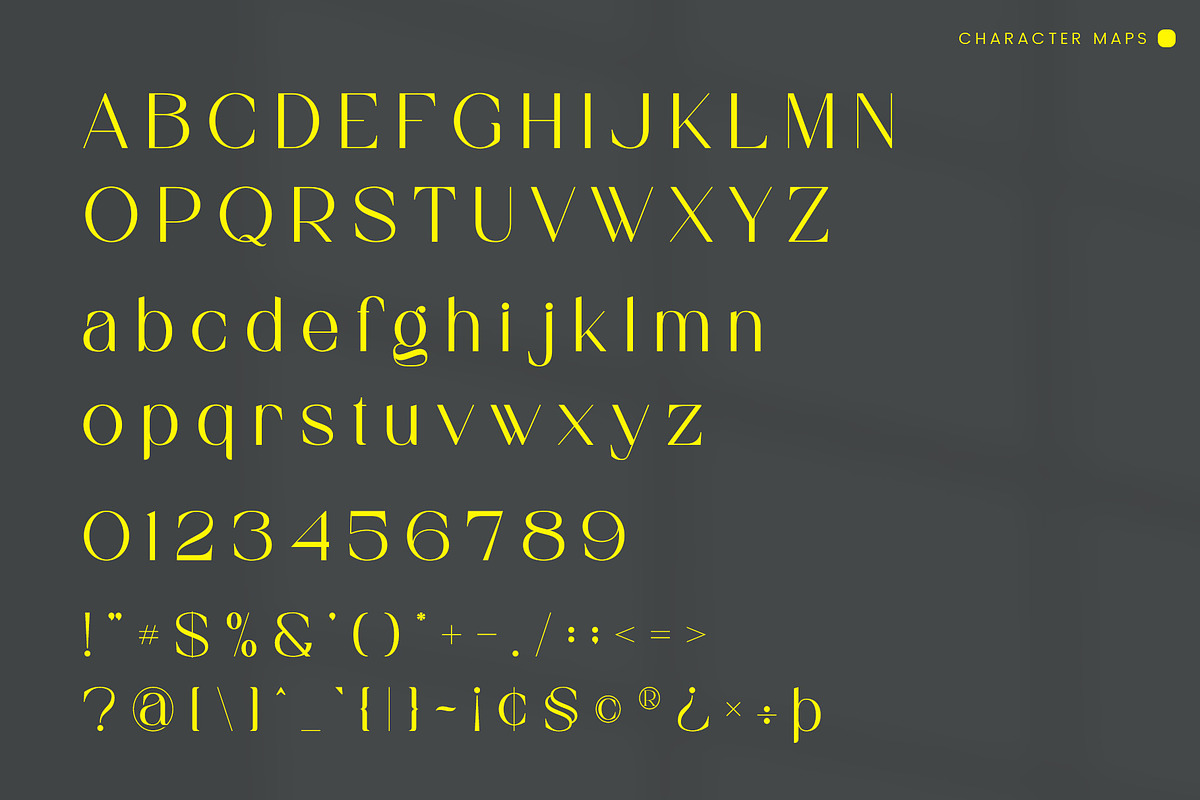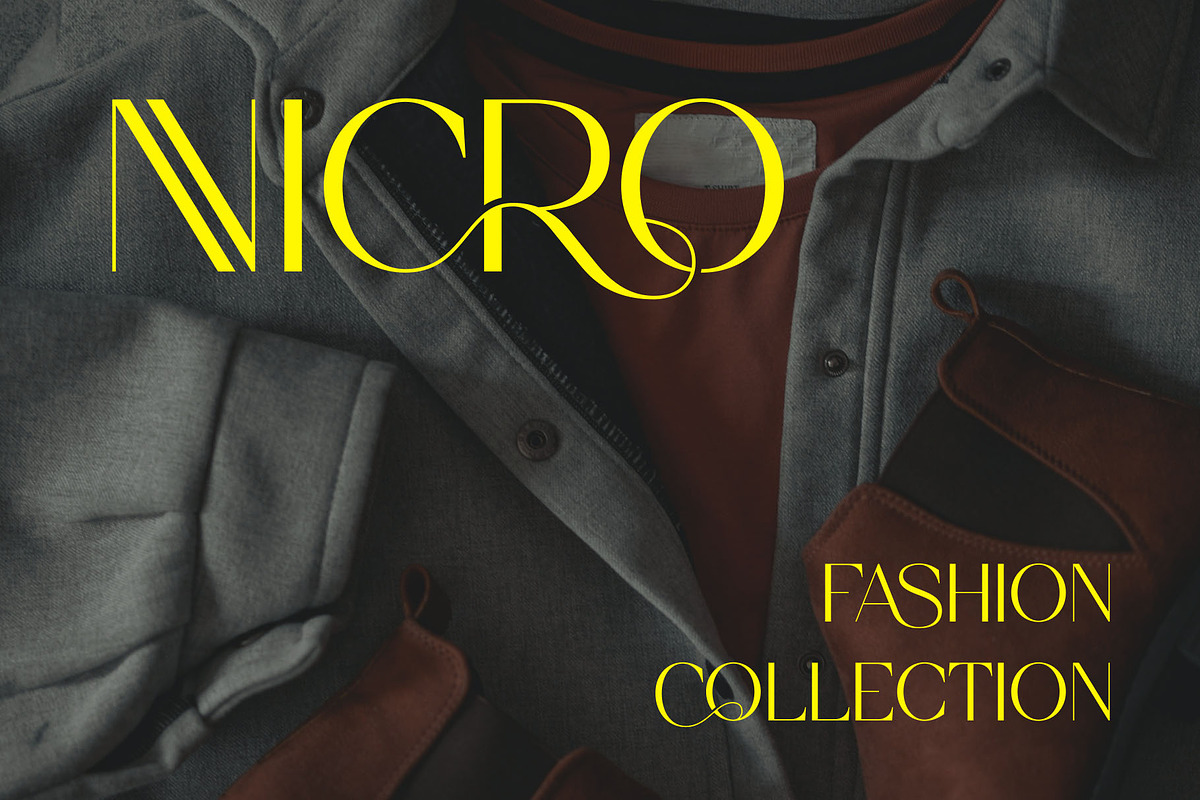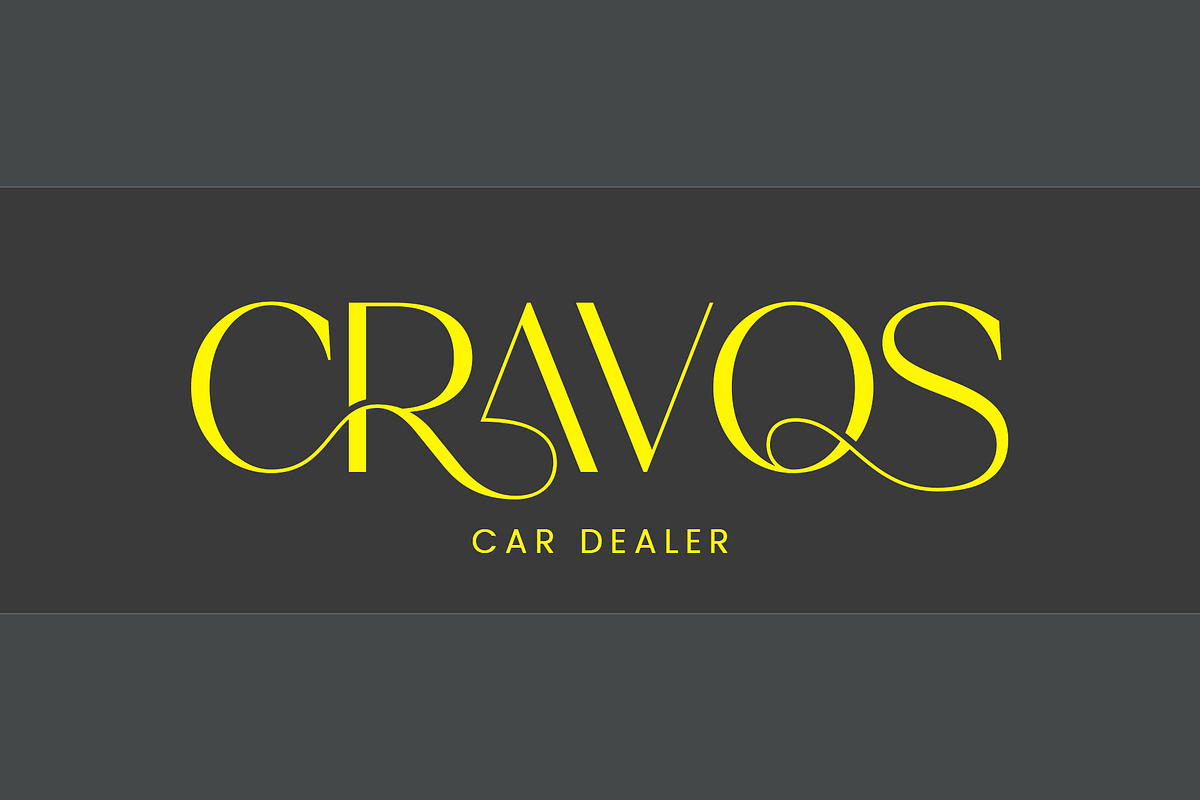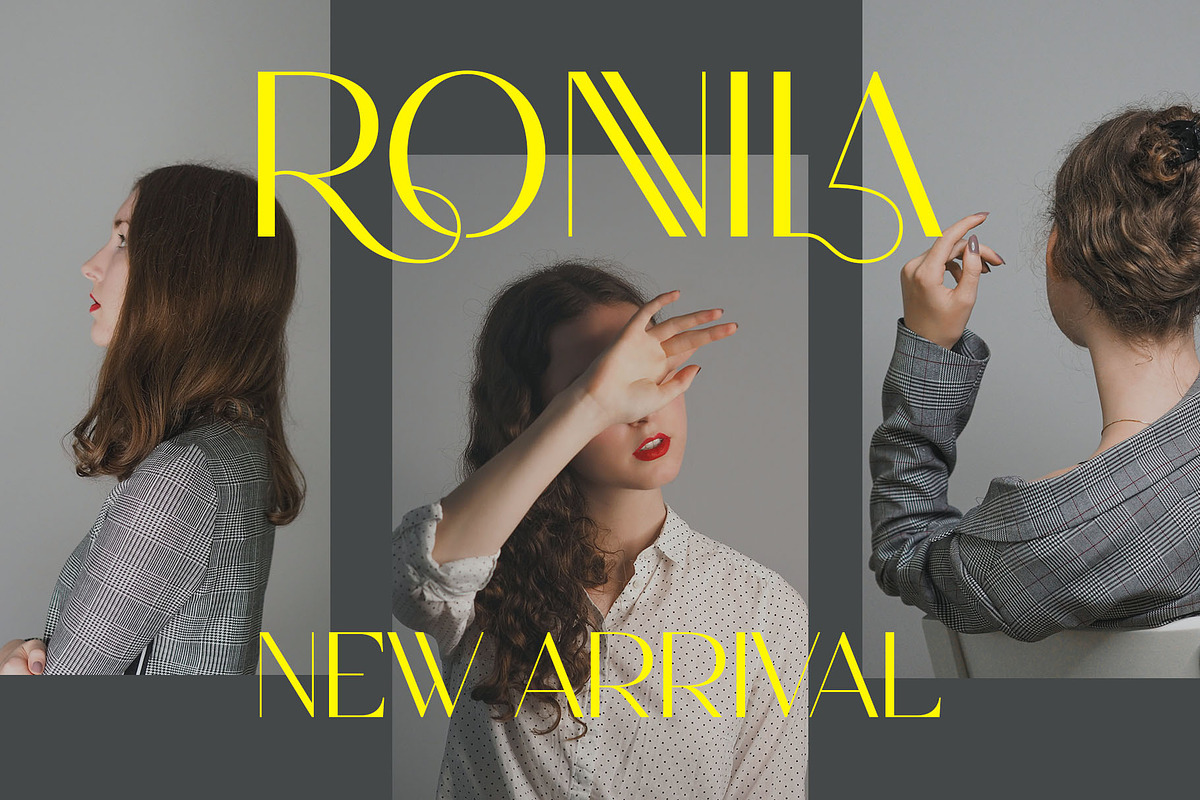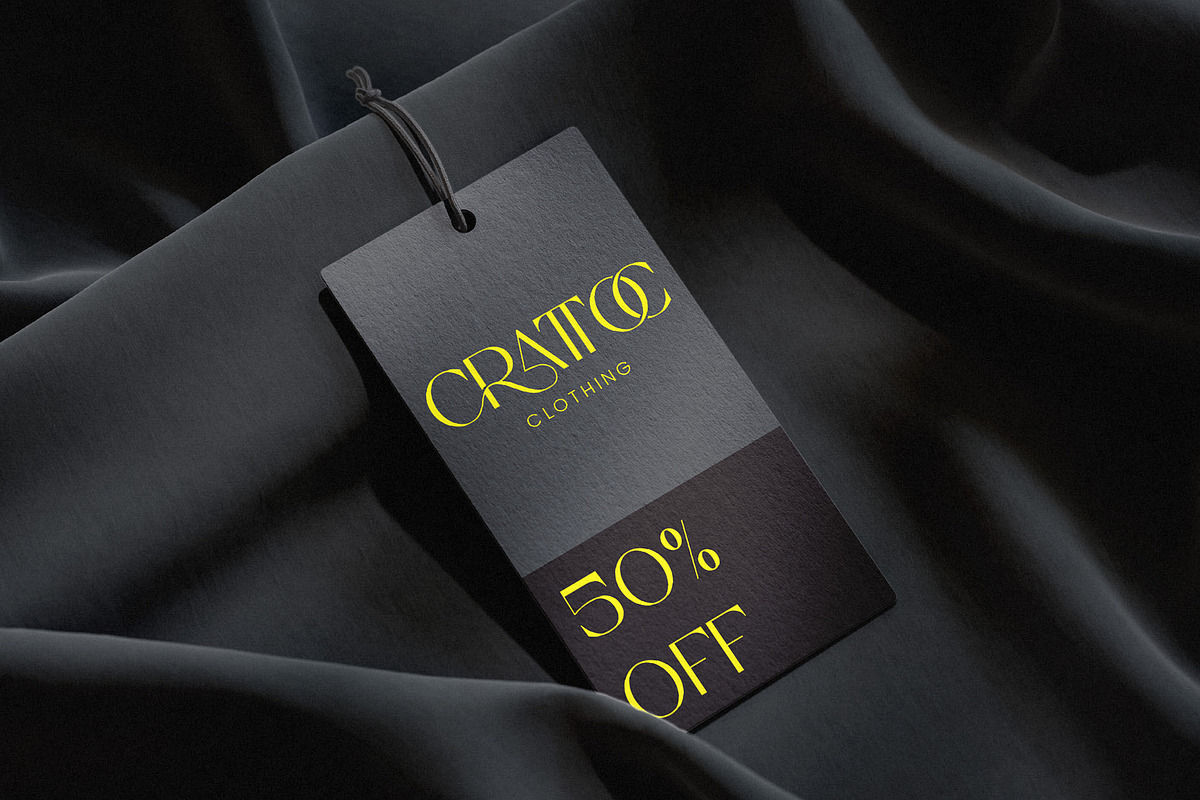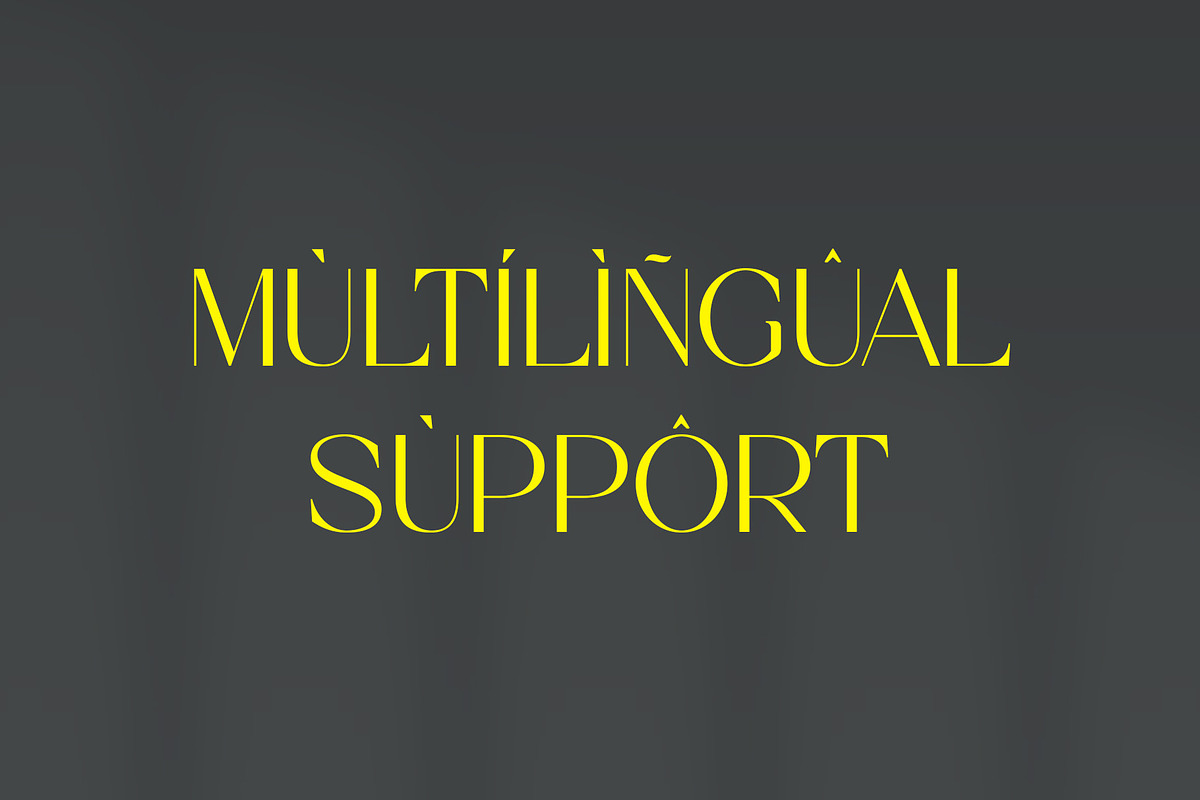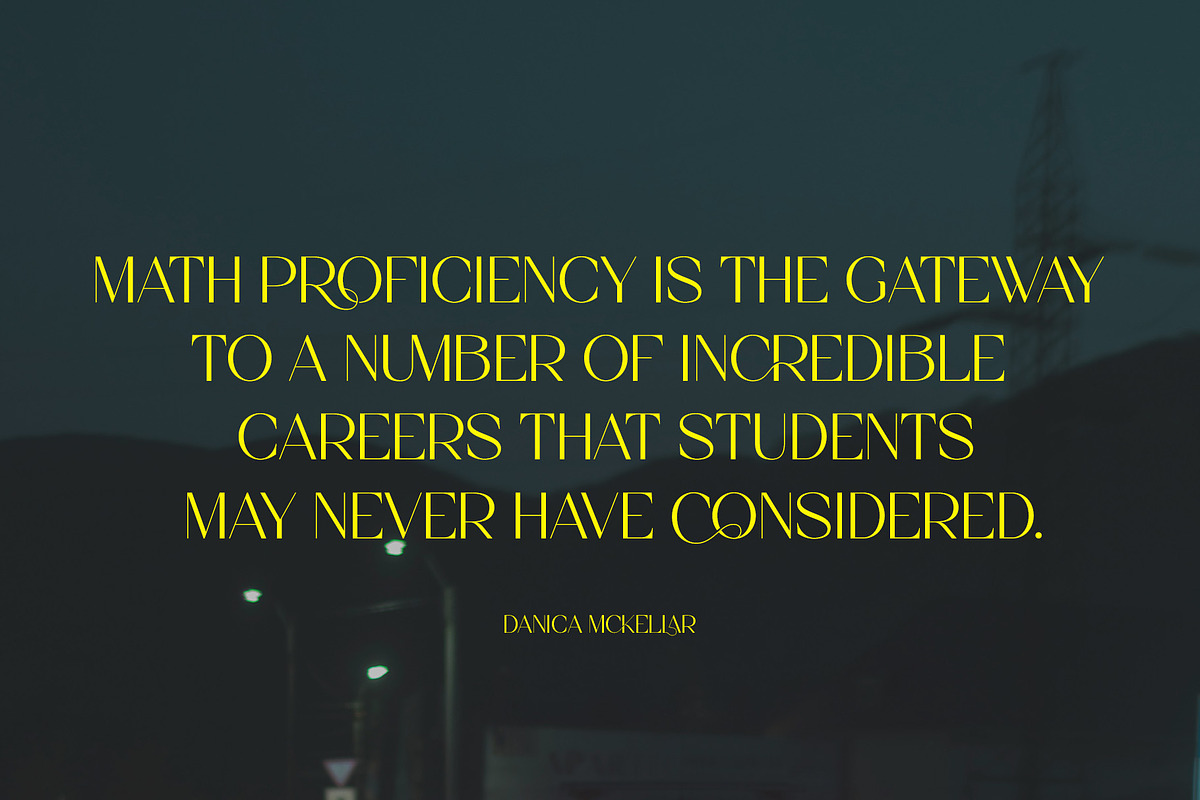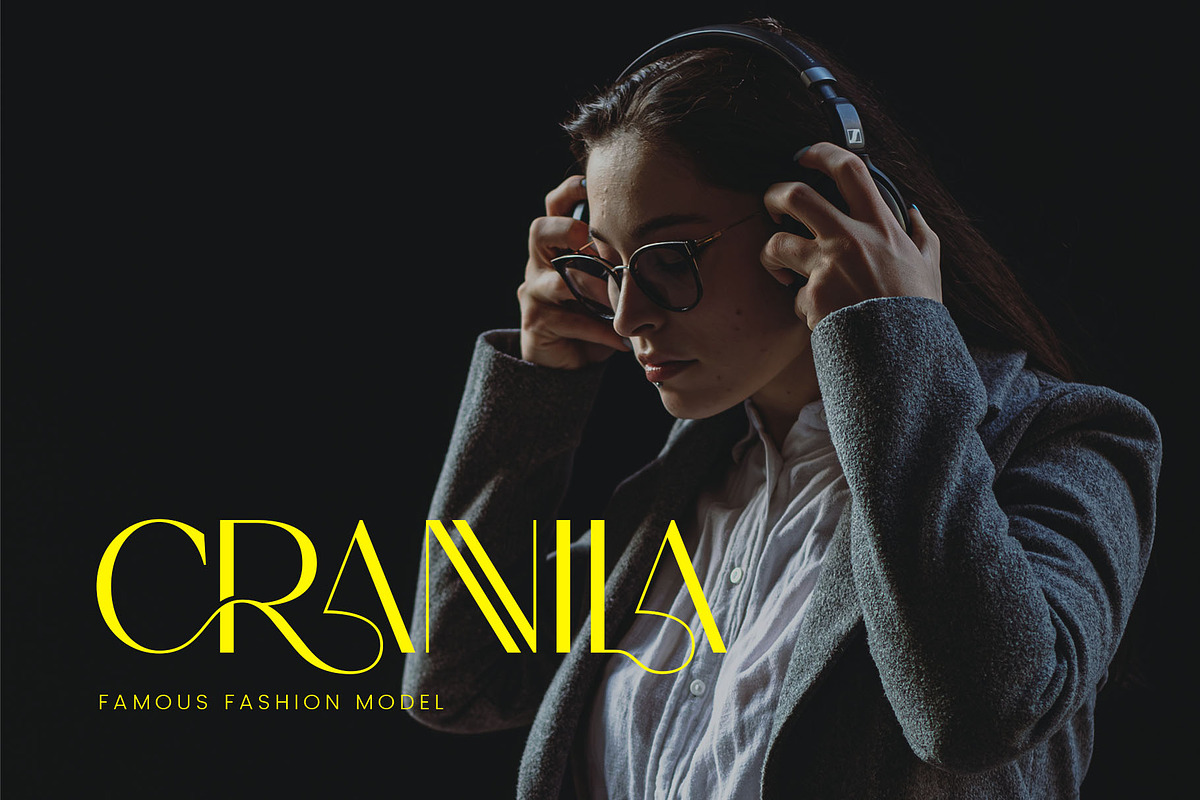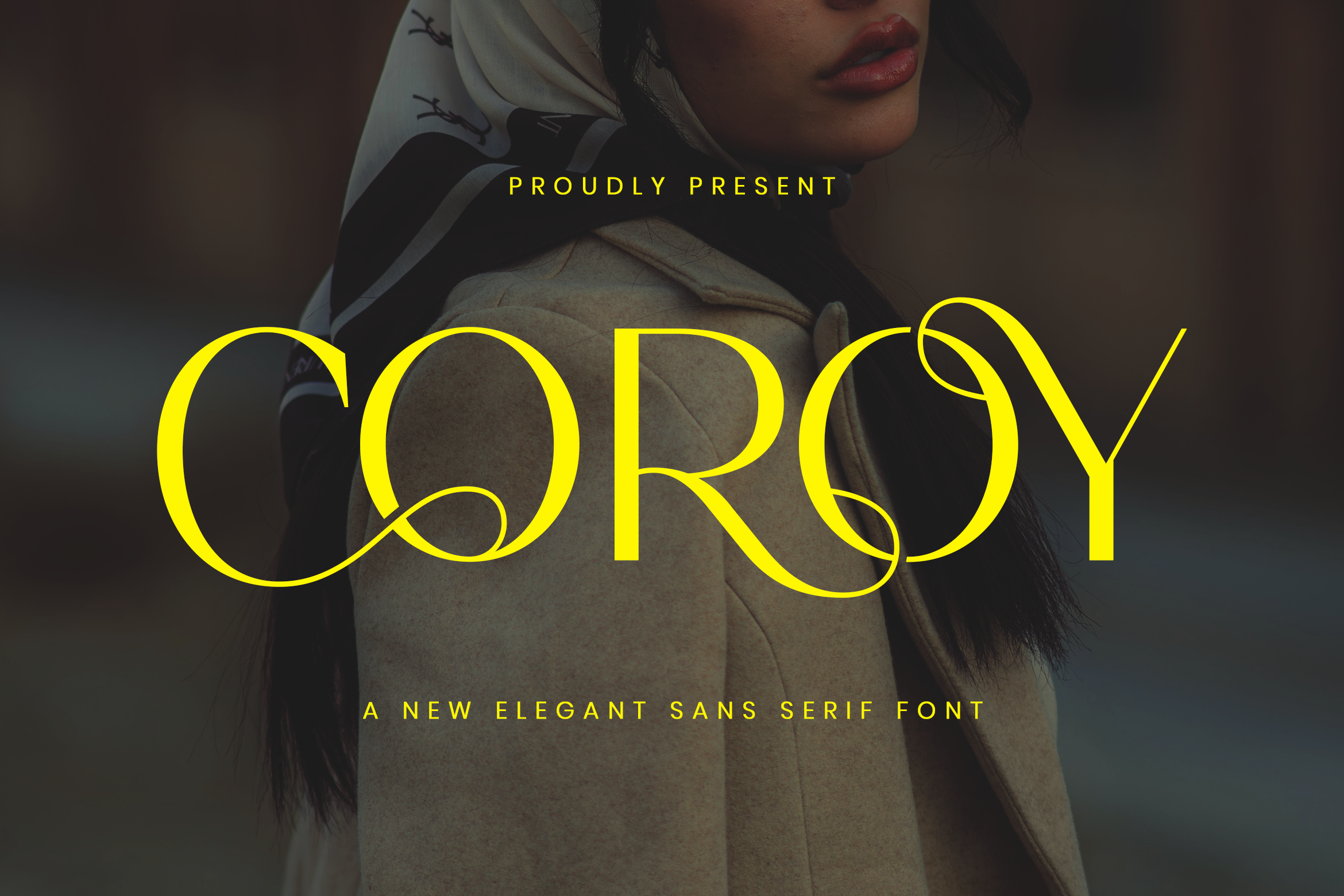
Coroy - Elegant Sans Serif Font
Coroy Sans Font Typeface inspired by the famous minimalist logo perfect for the purposes of designing templates, brochures, videos, advertising branding, logos, invitation, layout design, elegant crafting, beauty design and other.